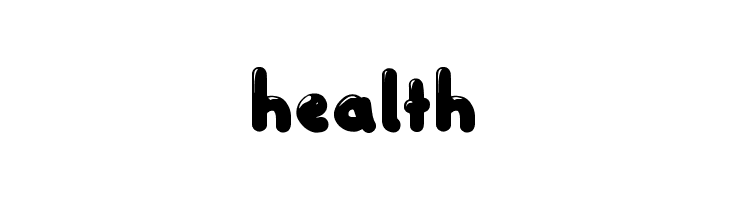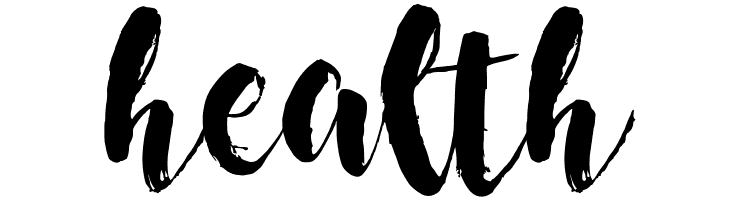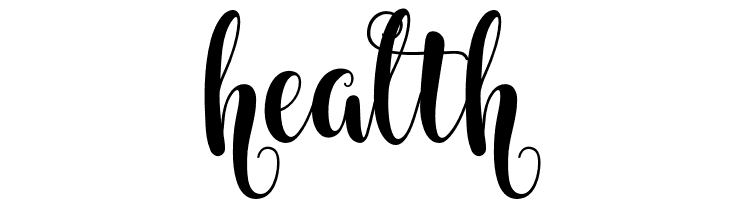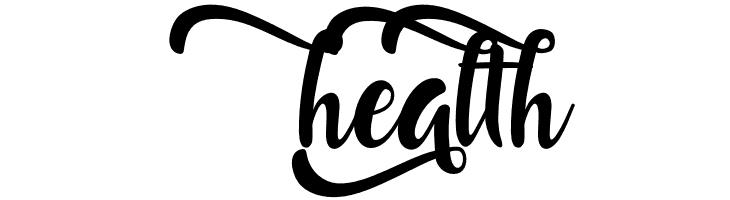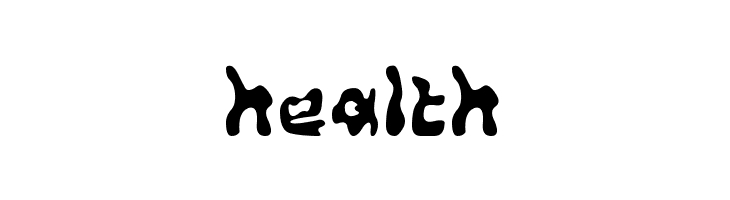
A bold, expressive brush script font with dynamic, sweeping strokes.
An elegant script font with ornate swirls and decorative flourishes.
A bold, expressive script font with dynamic strokes and artistic flair.
A flowing, cursive script font with elegant loops and swashes.
A modern, geometric font with rounded, uniform characters.
A playful, wavy font with a hand-drawn, organic appearance.
A playful, bubbly font with bold, rounded characters and a friendly feel.
A playful, stitched-style font with bold, rounded characters and a dotted pattern.